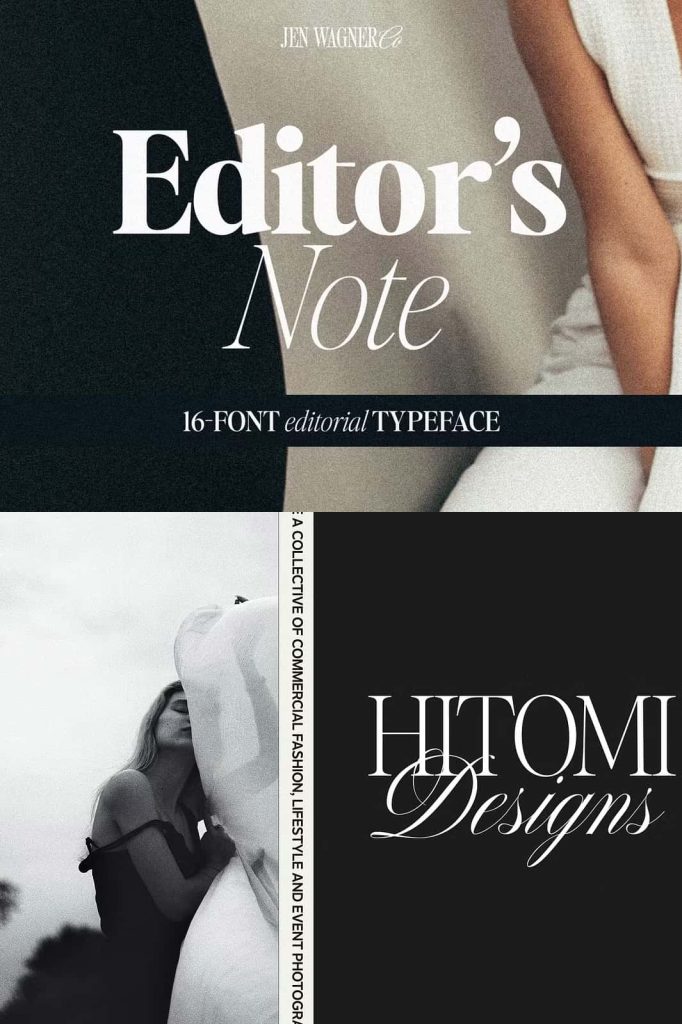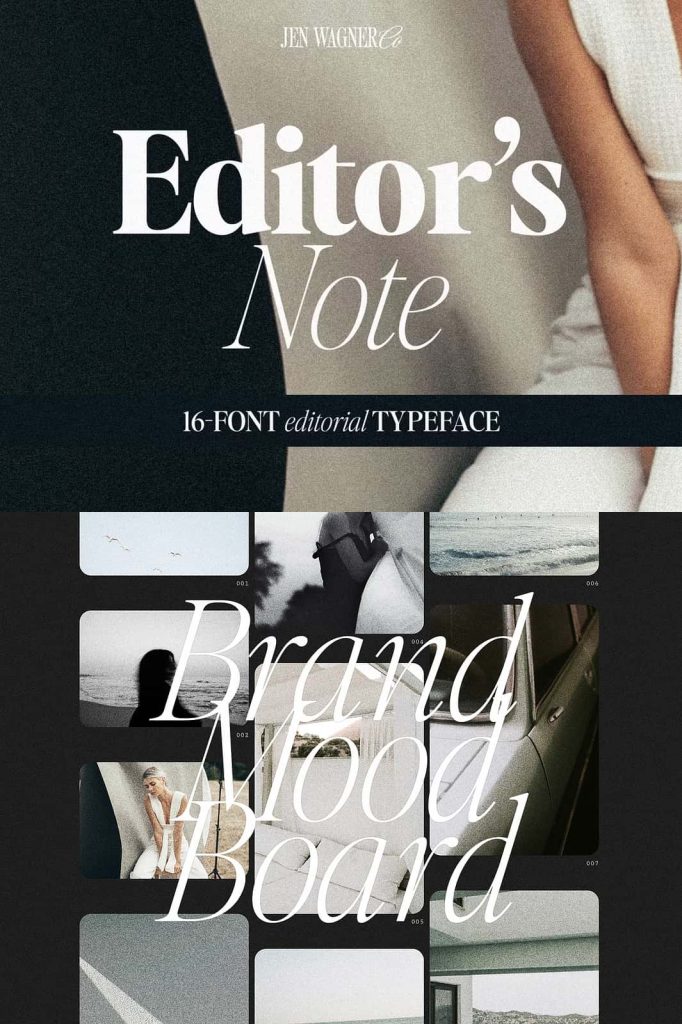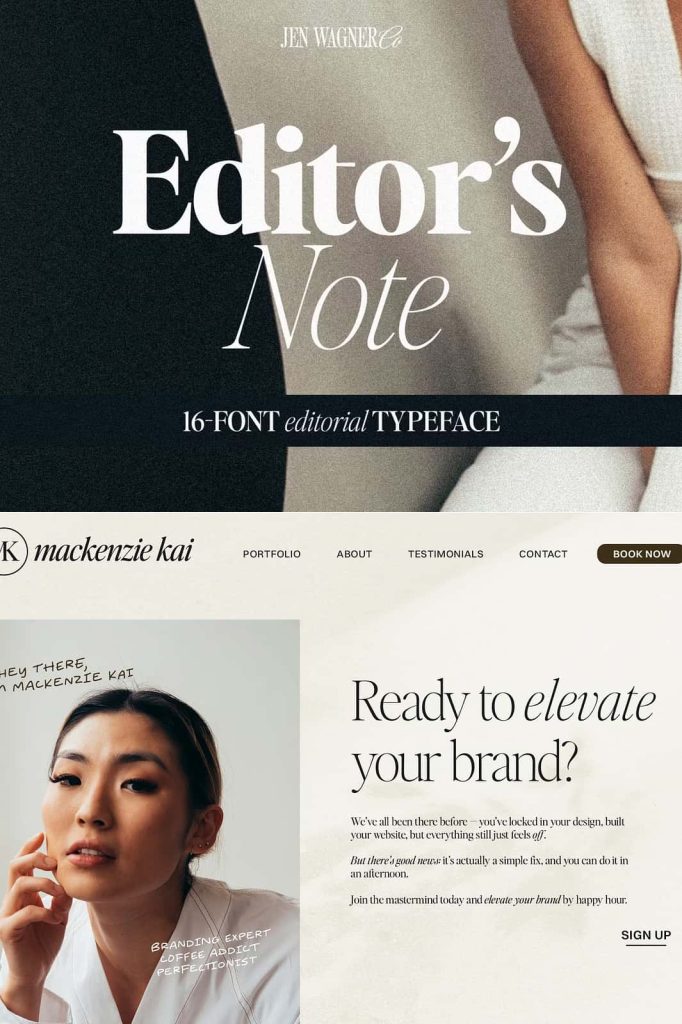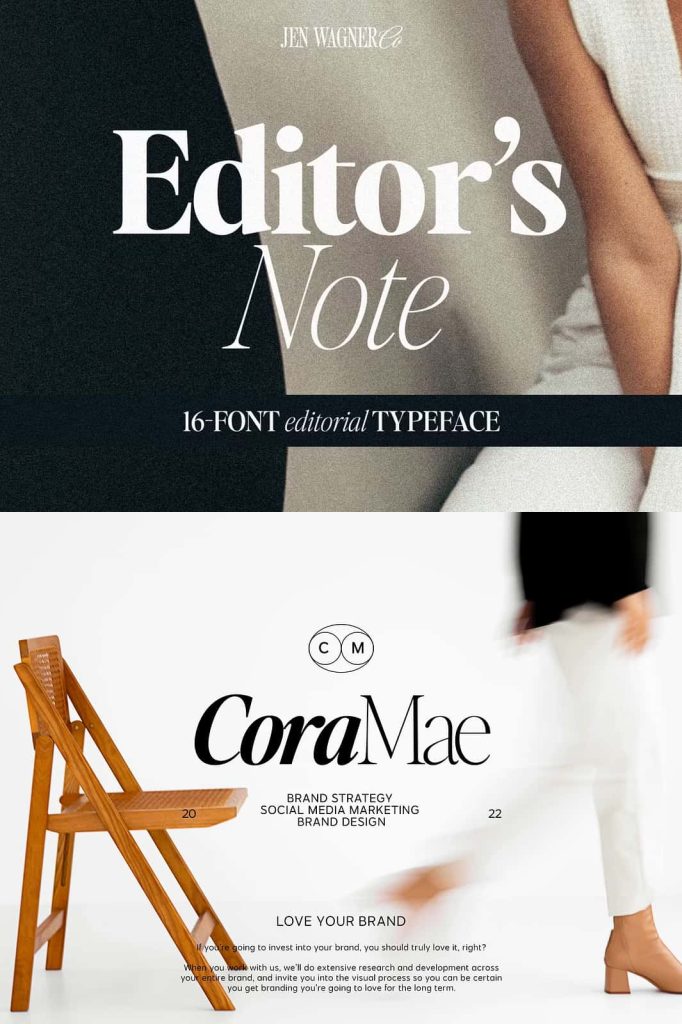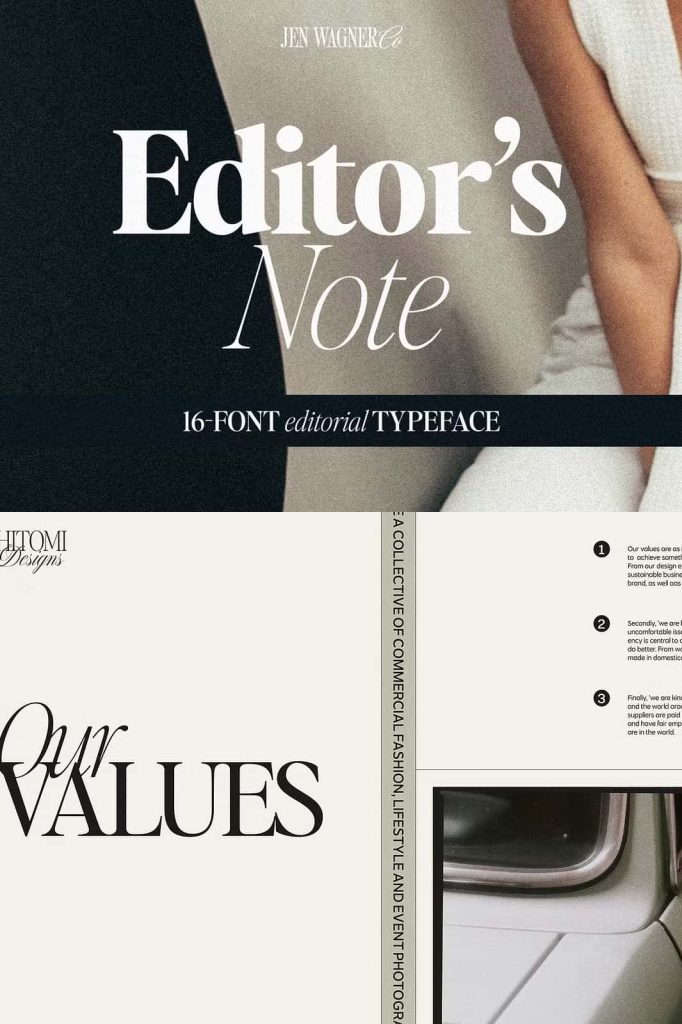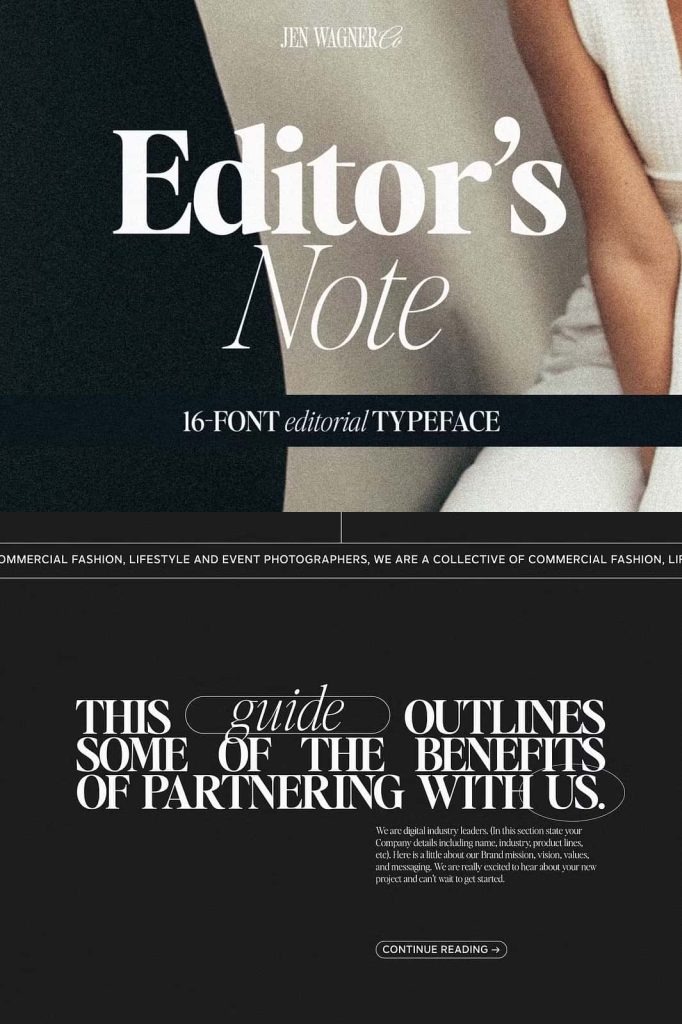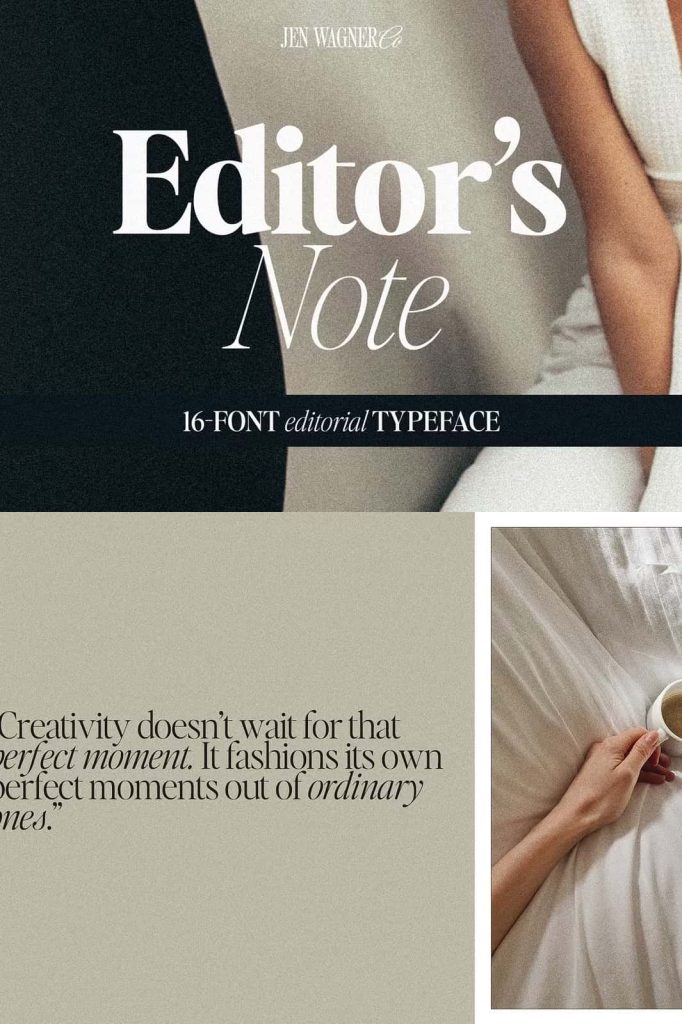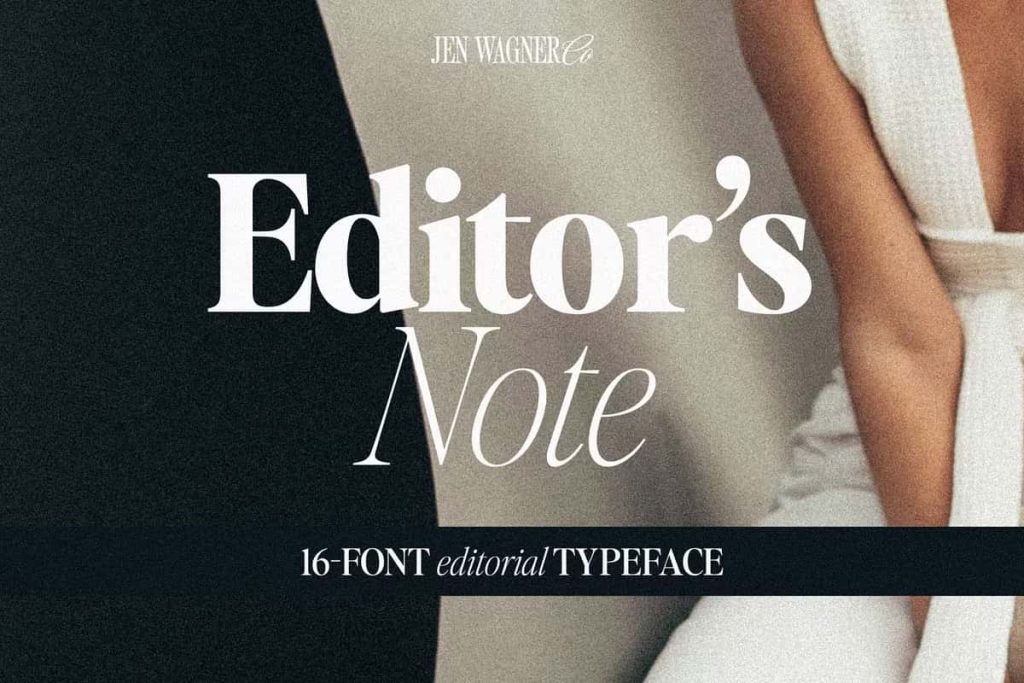
Editor’s Note 16Font Editorial Serif
Editor’s Note Font Family – A Modern Minimalist Typeface with Style and Versatility
Editor’s Note Font Family is the expanded version of the popular Editor’s Note typeface, now featuring 16 fonts that include both regular and italic styles. With weights ranging from elegant Hairline to powerful Bold, this collection delivers the perfect combination of clean lines, precise curves, and a trendy minimalist aesthetic. Designed for modern designers and brands that value sophistication, clarity, and flexibility, the Editor’s Note Font Family is built to elevate your creative work to the next level.
A Complete Typeface Family for Modern Design
The Editor’s Note Font Family was crafted to meet the growing demand for a clean, versatile type system that adapts to various design environments. Whether you’re creating a sleek editorial layout, a sophisticated brand identity, or a minimalist website, this family gives you every weight and style you need to achieve visual balance and consistency. With 16 variations—ranging from delicate Hairline for subtle elegance to Bold for impactful headlines—it’s a full toolkit that lets you design with confidence and precision.
Every letterform has been meticulously designed to reflect harmony and readability. The typeface embodies modernity through its balanced proportions, smooth geometry, and refined edges. The italic versions add personality and motion, giving designers creative flexibility for emphasis and contrast. This makes Editor’s Note Font Family an ideal choice for professionals who demand both beauty and functionality in their typography.
Minimalist Aesthetic with Maximum Impact
Minimalism is at the core of Editor’s Note Font Family. The design emphasizes clarity, structure, and a sleek, contemporary look. Each stroke and curve is carefully balanced to ensure visual appeal without unnecessary embellishment. The result is a typeface that feels fresh, elegant, and timeless—perfect for modern branding, editorial spreads, tech startups, fashion labels, and lifestyle publications.
Despite its minimalist nature, the font family is far from bland. The subtle contrasts, tight curves, and clean linework create an inviting rhythm across text blocks and headlines alike. This thoughtful design approach ensures that your message shines through with sophistication and authority, no matter where it appears. Editor’s Note Font Family effortlessly bridges simplicity and expression, making it a must-have for designers who value refined typography.
16 Weights, Endless Possibilities
One of the standout features of Editor’s Note Font Family is its range of 16 styles—eight weights, each with its italic counterpart. From the whisper-thin Hairline to the commanding Bold, every weight serves a unique purpose. The lighter versions are perfect for subtle, airy layouts such as fashion editorials or lifestyle branding, while the heavier styles are ideal for attention-grabbing titles and impactful digital visuals.
This variety empowers designers to maintain visual harmony across different media while still creating hierarchy and emphasis. By mixing weights and styles, you can easily build dynamic compositions that guide the reader’s eye and enhance overall readability. Whether you’re working on web design, printed materials, or product packaging, Editor’s Note Font Family provides the adaptability you need for cohesive and creative typography.
Precision and Readability at Every Size
While Editor’s Note Font Family is undeniably stylish, it also prioritizes legibility. Each glyph has been optimized for balance and spacing, ensuring that your text remains clean and easy to read at any scale. The consistent stroke thickness and modern letter proportions make it a reliable choice for both headlines and body text. From magazine spreads to digital dashboards, this typeface maintains clarity and sophistication across all applications.
The italic variants offer subtle slant and curvature, bringing motion and personality to your compositions. They’re especially useful for adding contrast in editorial layouts or emphasizing key phrases in branding materials. This level of detail and versatility ensures that Editor’s Note Font Family doesn’t just look good—it performs beautifully in every context.
Perfect for a Variety of Design Projects
Because of its clean aesthetic and structural precision, Editor’s Note Font Family adapts seamlessly to a wide range of creative projects. It’s perfect for:
• Branding and Logos – Establish modern, confident visual identities.
• Editorial Design – Enhance magazines, books, and online publications with stylish readability.
• Web and UI Design – Ensure clarity and harmony across digital platforms.
• Corporate Materials – Maintain a professional, minimal aesthetic for presentations and reports.
• Advertising and Marketing – Craft clean, eye-catching campaigns that attract modern audiences.
No matter the application, Editor’s Note Font Family delivers a polished, sophisticated look that resonates with today’s design trends. Its minimalist foundation ensures it pairs well with a variety of color palettes, layouts, and imagery, making it an indispensable addition to your type library.
Conclusion: Define Your Style with Editor’s Note Font Family
Editor’s Note Font Family is more than just a typeface—it’s a modern design solution. With 16 meticulously crafted fonts, it provides the perfect balance of versatility, style, and functionality. Its minimalist lines, smooth curves, and contemporary elegance make it a go-to choice for branding, editorial work, and professional design. From the lightest Hairline to the boldest weight, each variation is a testament to clean design and precision craftsmanship. Choose Editor’s Note Font Family to give your creative projects a polished, modern, and timeless voice.